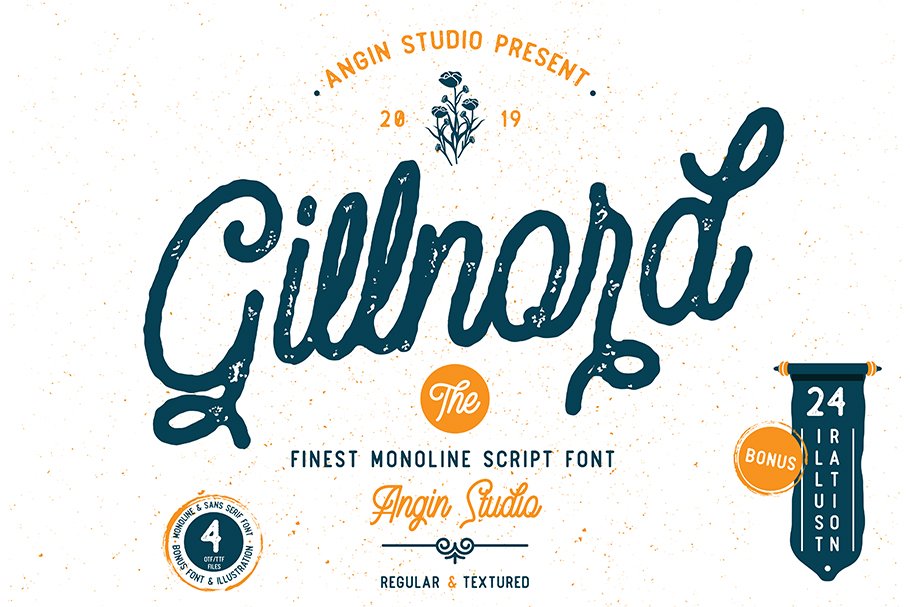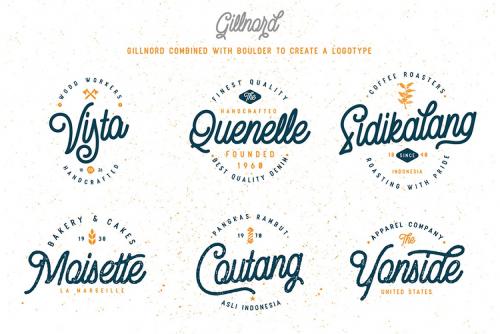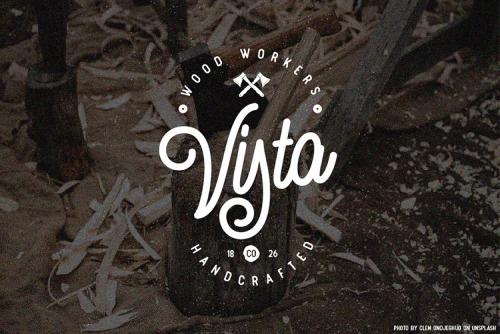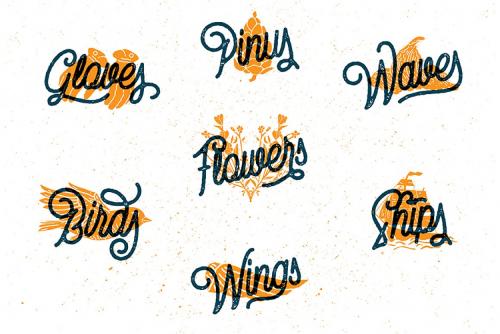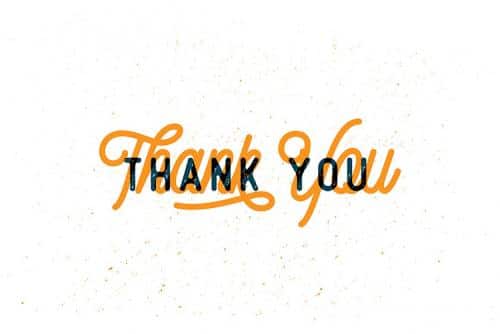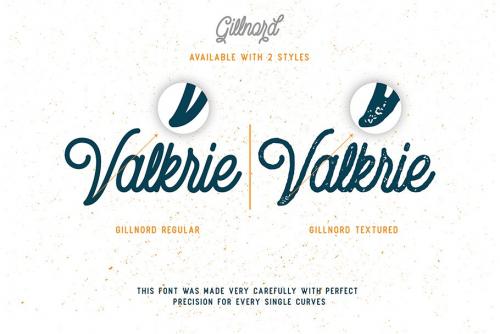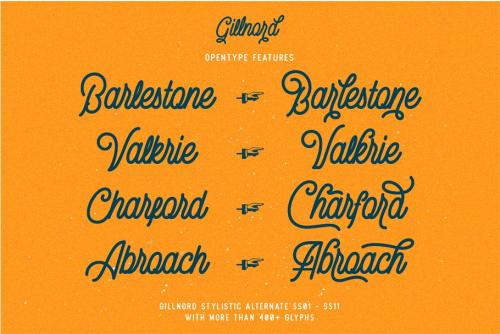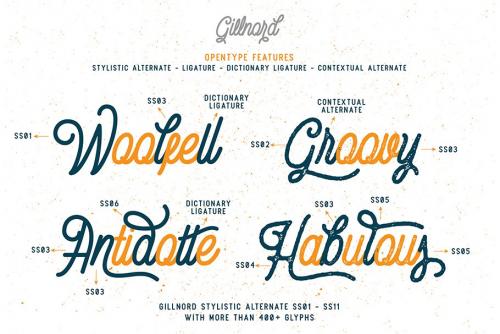
Gilnord is a vintage monoline script based on our hand lettering. this font created very carefully with perfect precision for every single curves.
Gillnord have a unique shape that make it different and eye catching, also it will make your design have more aesthetic look.